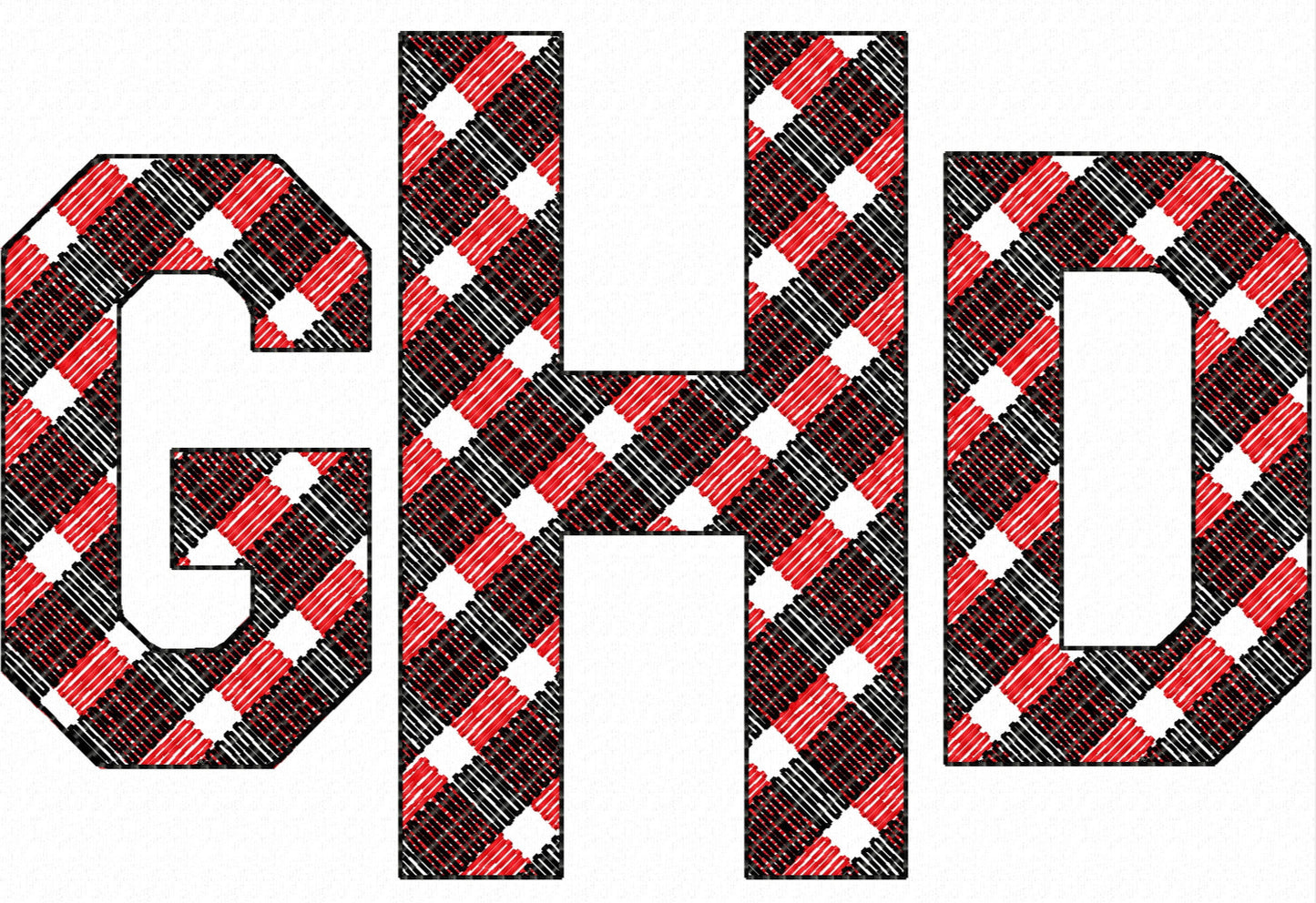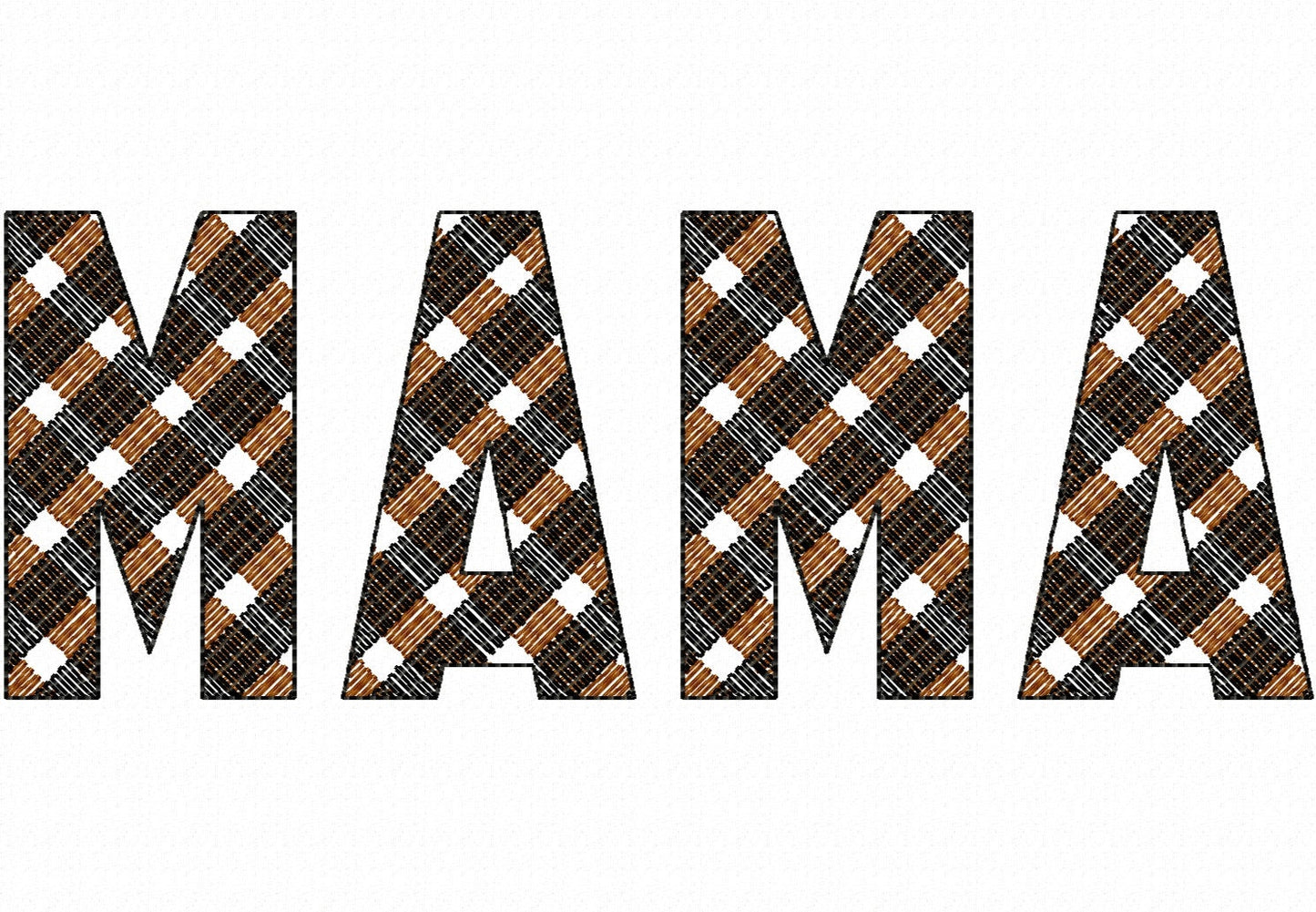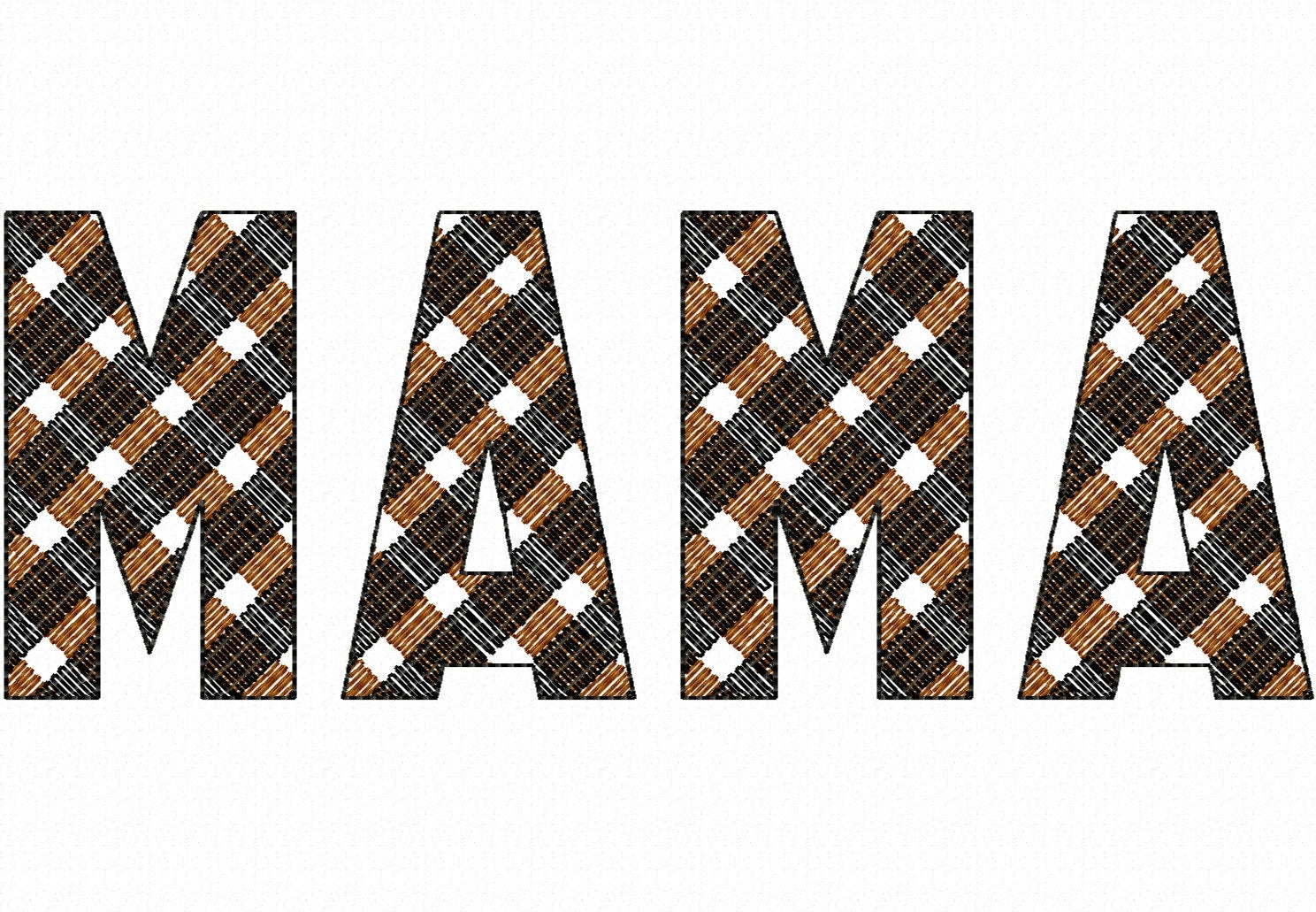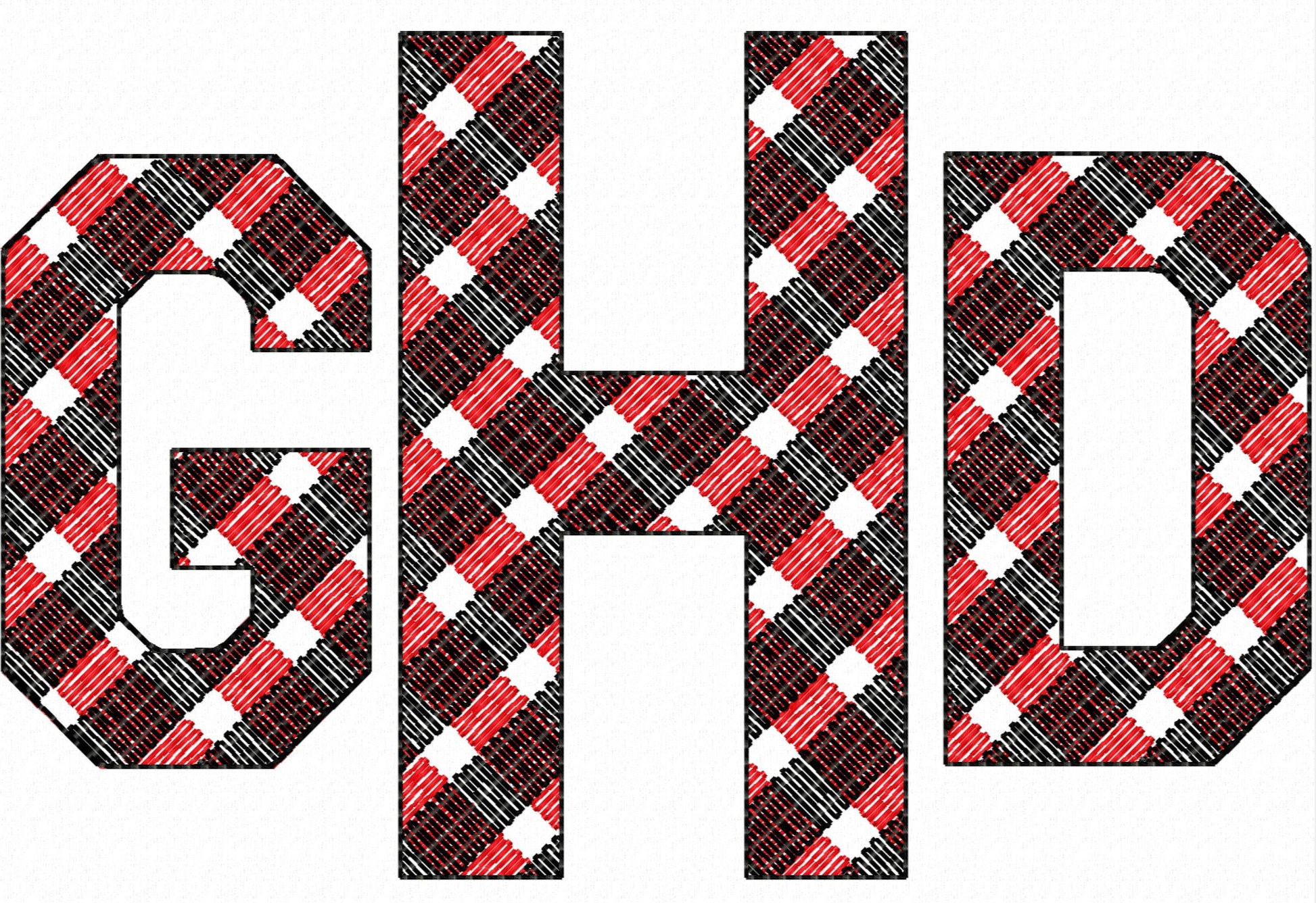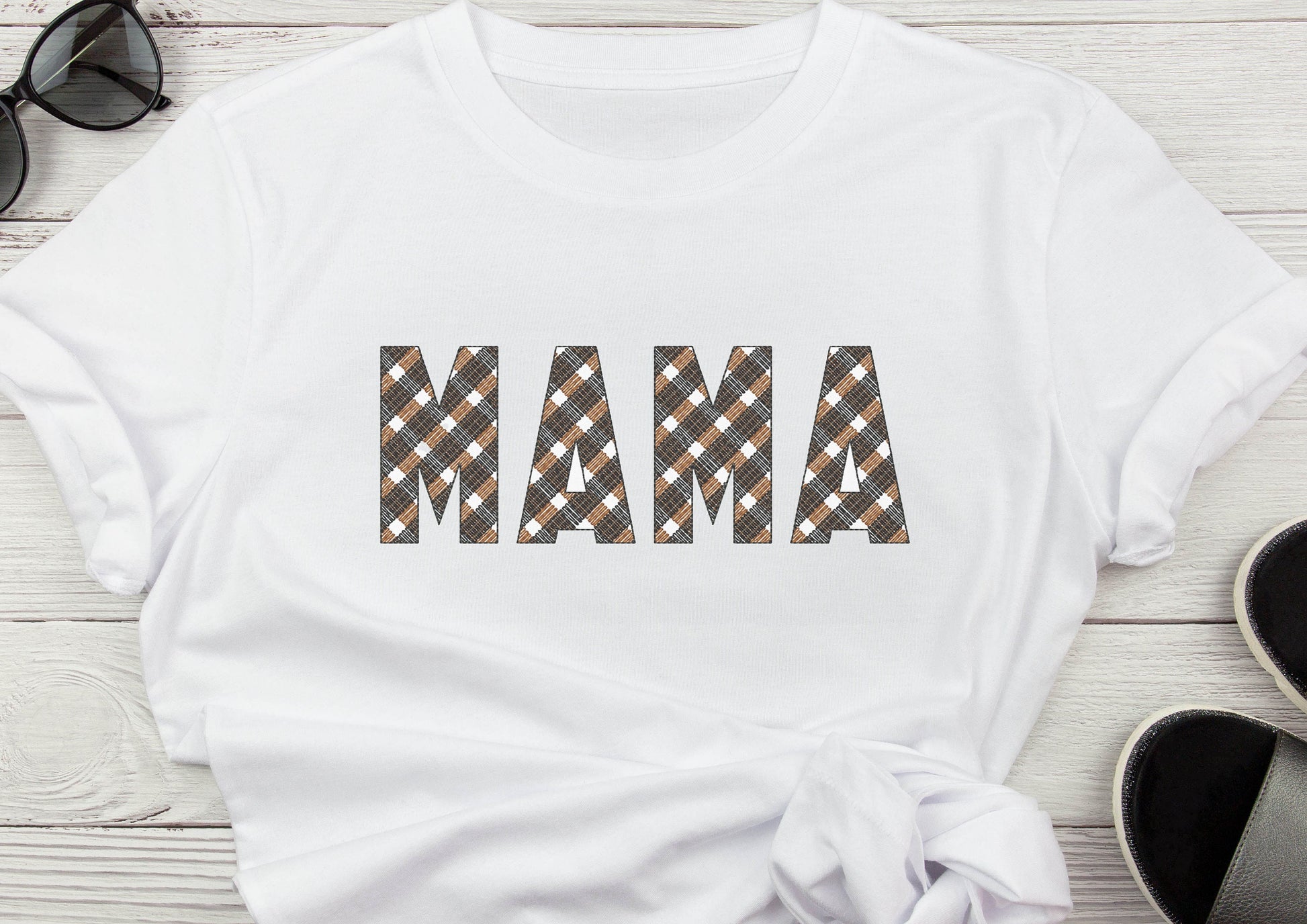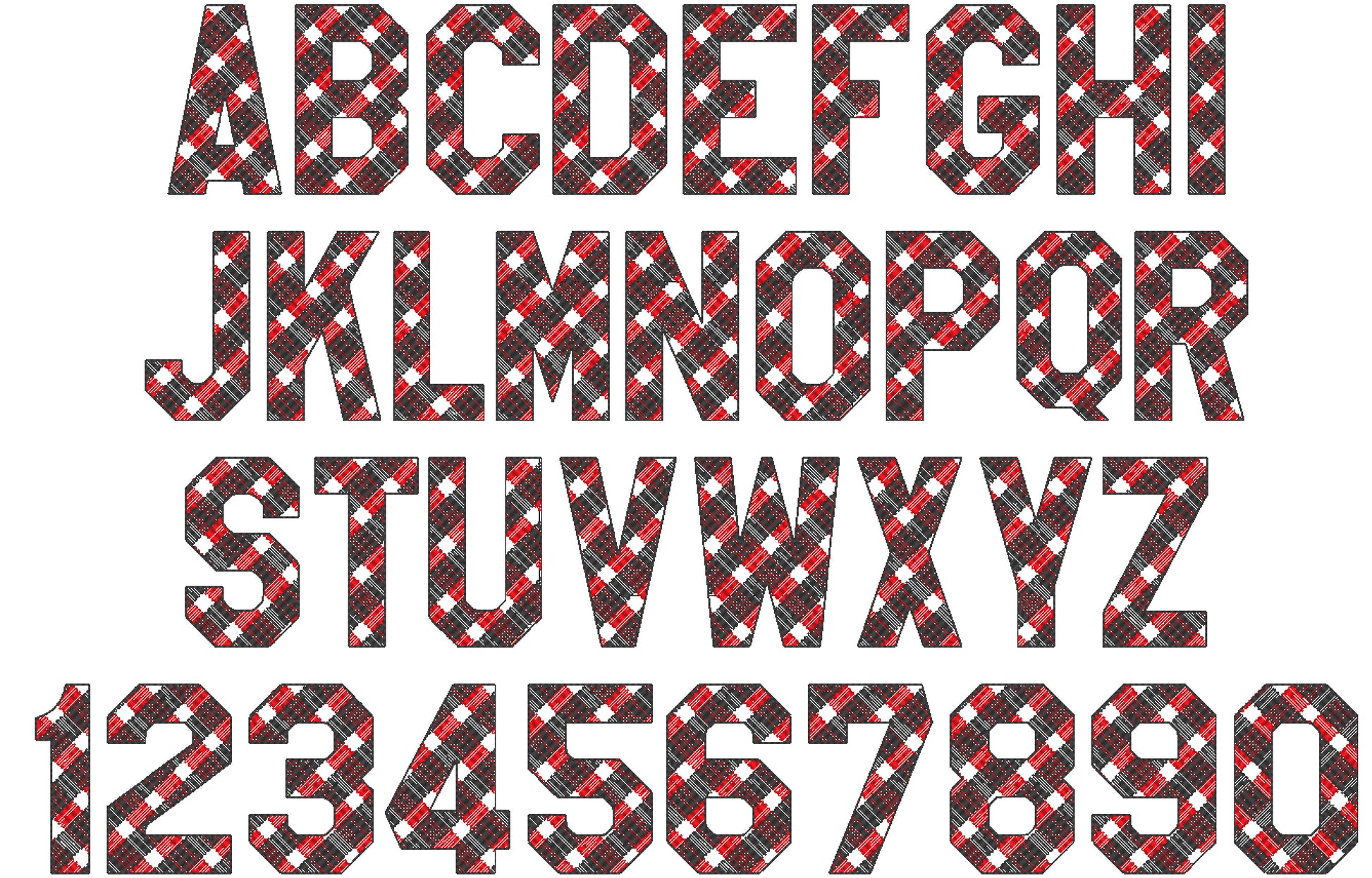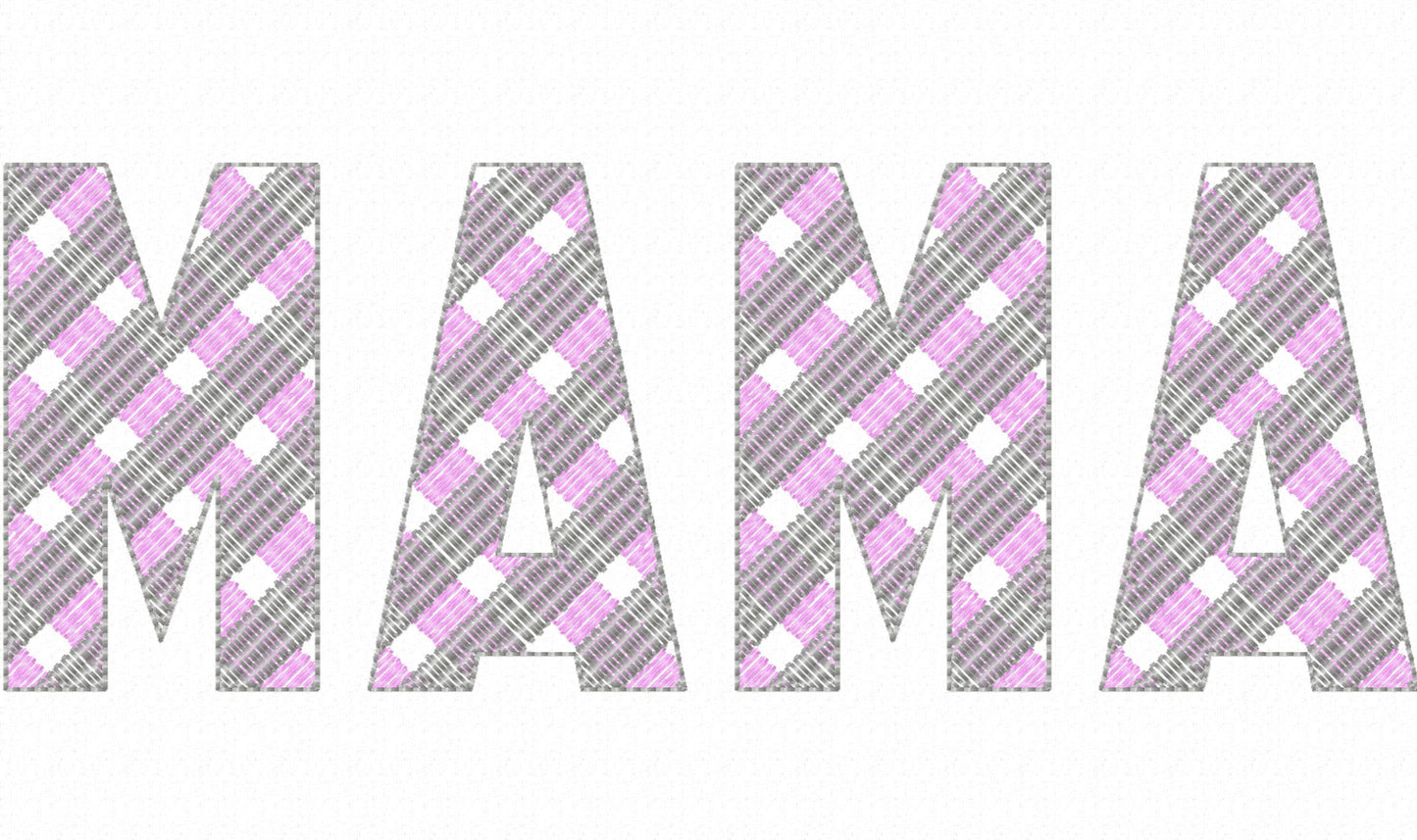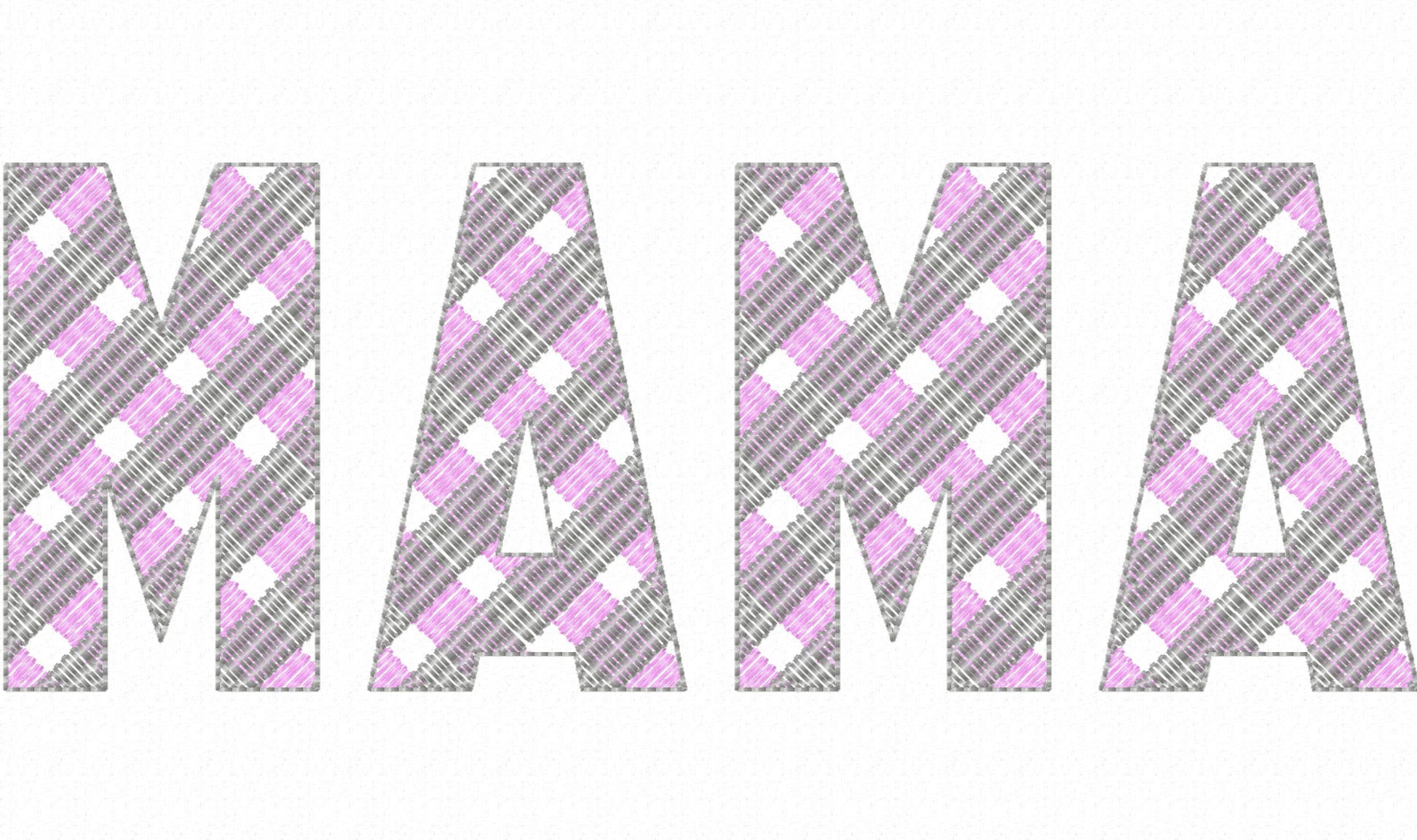
Or click to open the linkA gingham buffalo plaid athletic block font, for team names and numbers on shirts, hoodies and bags.
The gingham plaid is part of the embroidery. Uppercase A to Z, numbers 0 to 9 and a few signs in seven sizes from 2 to 7 inches.